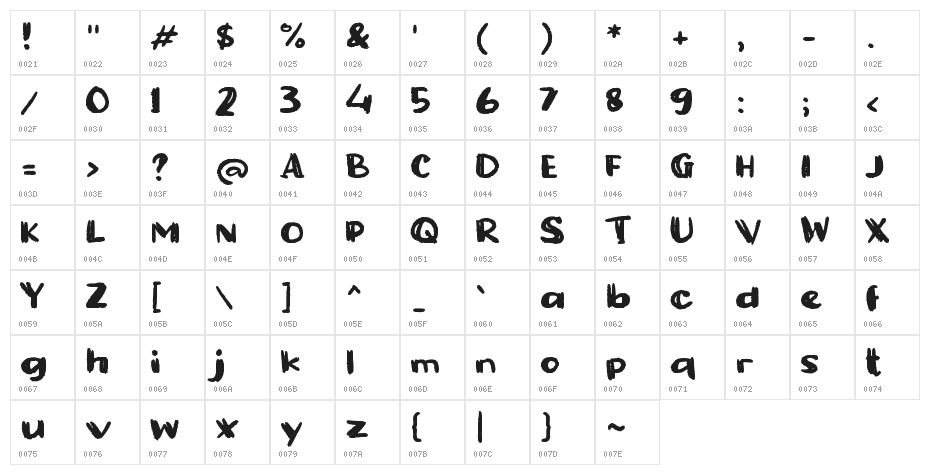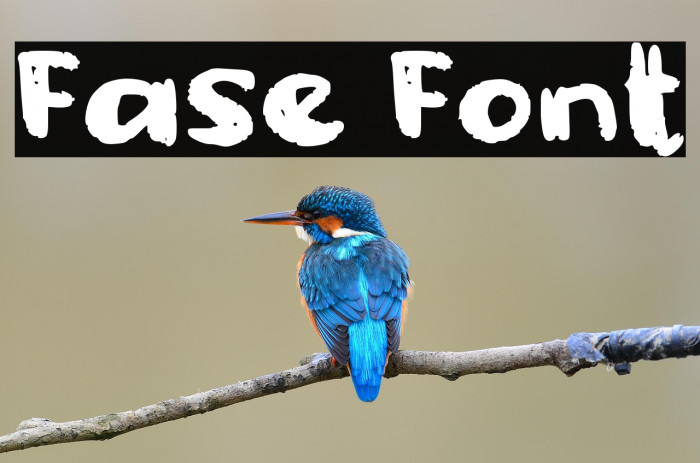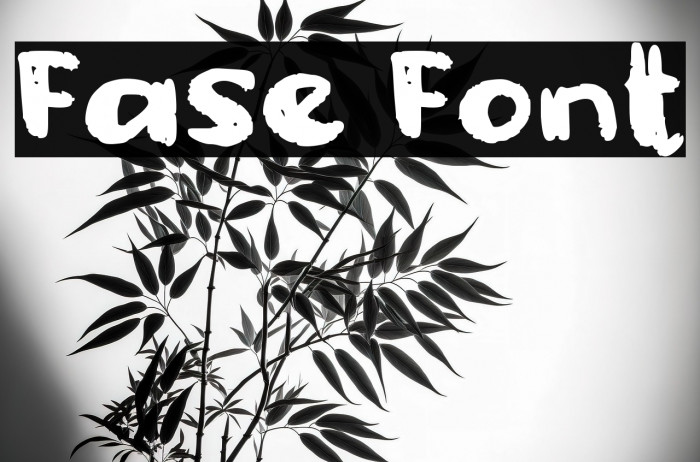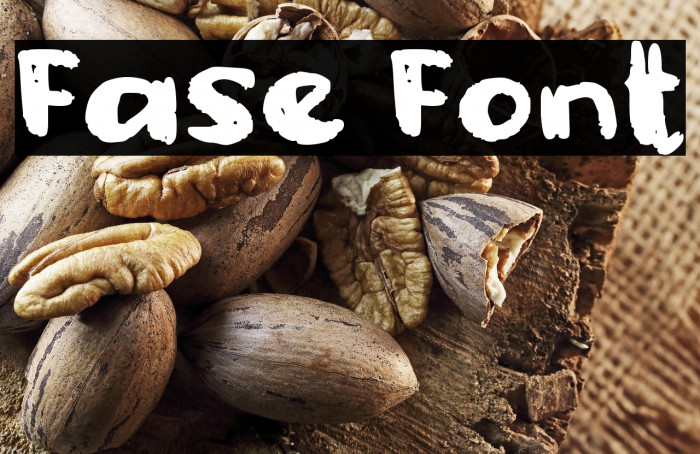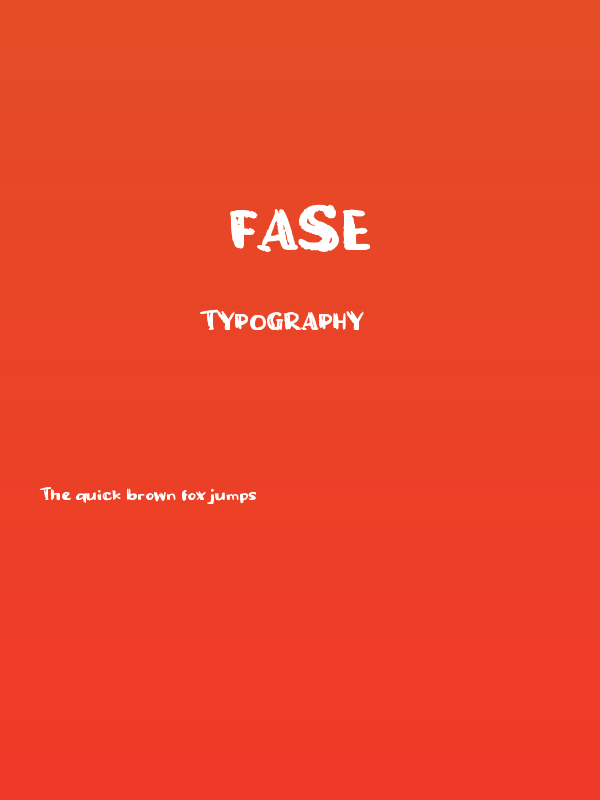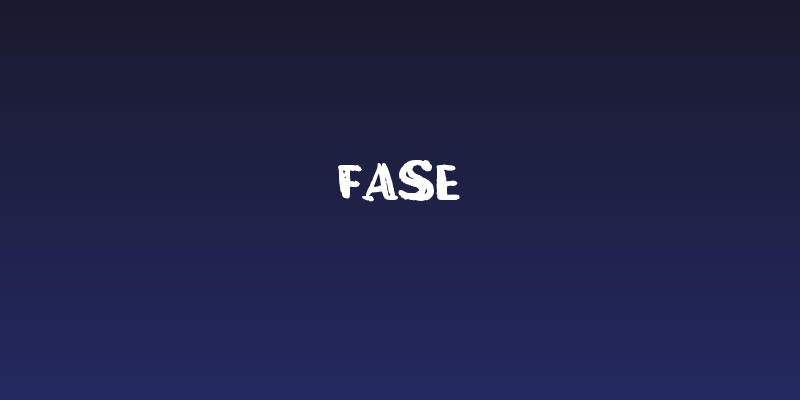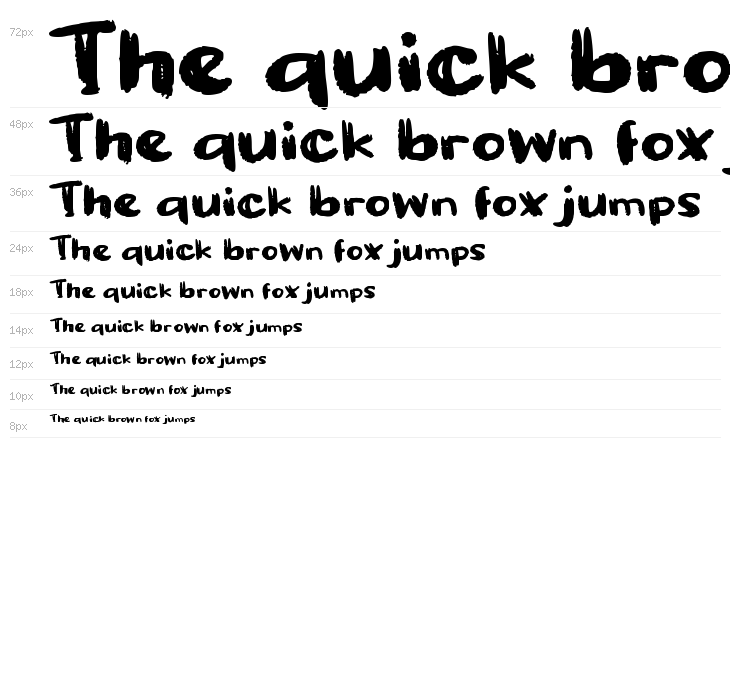
Fase Font
Fase Description
This font features a bold and expressive style, characterized by its thick, brush-like strokes that give it a hand-painted appearance. The letters have a playful and dynamic quality, with irregular edges and varying stroke widths that add to its artistic flair. The uppercase and lowercase letters maintain a consistent style, while the numbers and special characters complement the overall design. This font's unique and energetic look makes it ideal for projects that require a touch of creativity and individuality.
Overall StyleArtistic, Playful
Use CaseHeadlines, Posters, Creative Branding
Proposed ProjectsIdeal for posters, artistic branding, creative invitations, and eye-catching headlines.